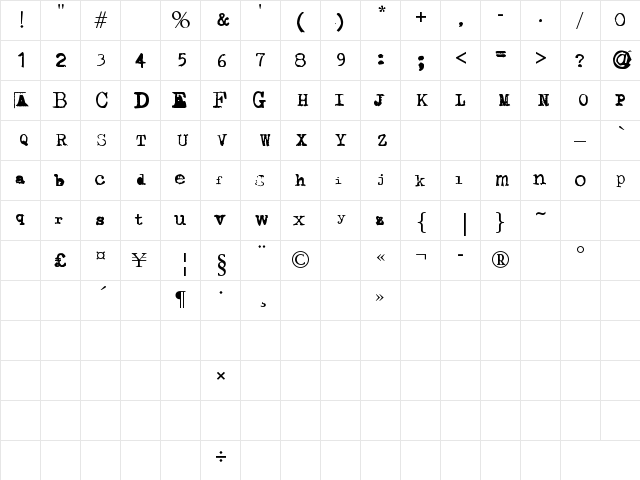
Typewriter from 286 Regular
Design Context for Typewriter from 286 Typeface
Typewriter from 286 brings the precise, column-aligned rhythm of monospaced typography to designs that value technical clarity and systematic order.
Pro Tip: Use Typewriter from 286 with slightly increased line-height for extended reading — fixed-width spacing can feel dense in longer passages without extra breathing room.